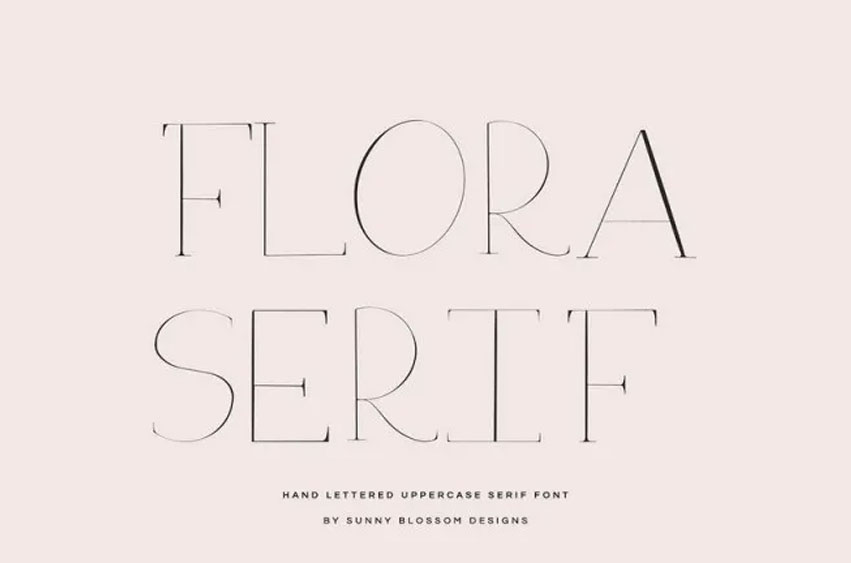
Flora Serif Font
Flora Serif Font is a modern and playful serif typeface. It combines classic style fonts by a hint of minimalist style, creating stunning and sophisticated fonts. The typeface was created and is owned through Katie Goertzen. It’s a modern hand-written serif font that appears elegant and natural. The font is uppercase letters only, there is without punctuation numbers, lowercase letters or numbers.
It is ideal to create quote text for manufacturing or logotype, header magazines T-shirt design wedding cards and concepts handcrafted designs, etc.